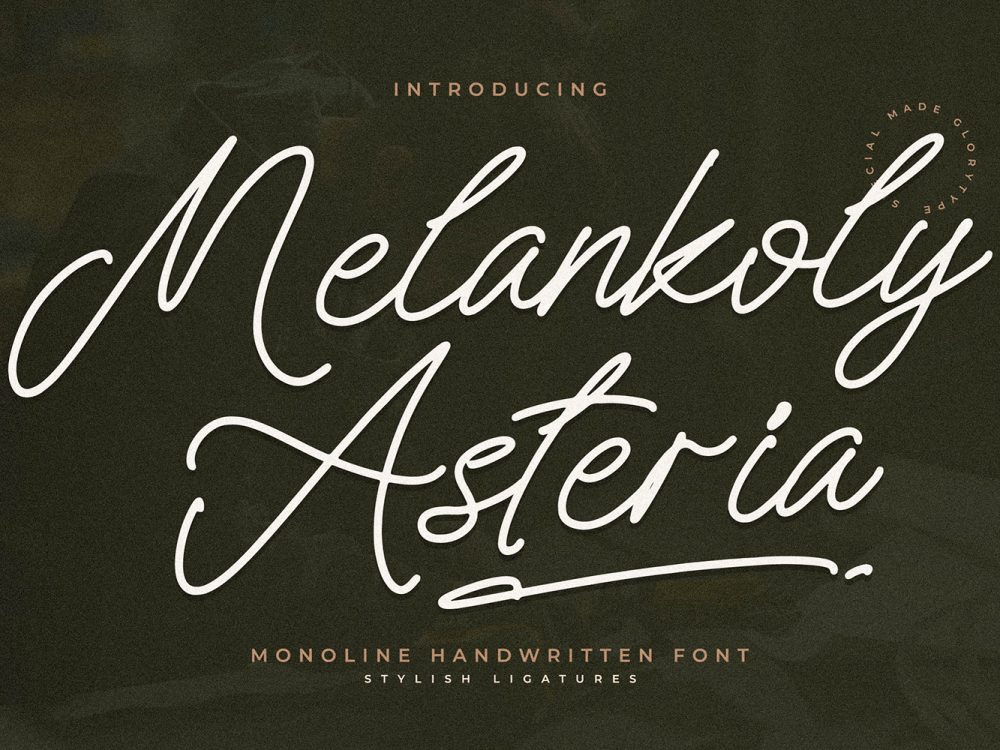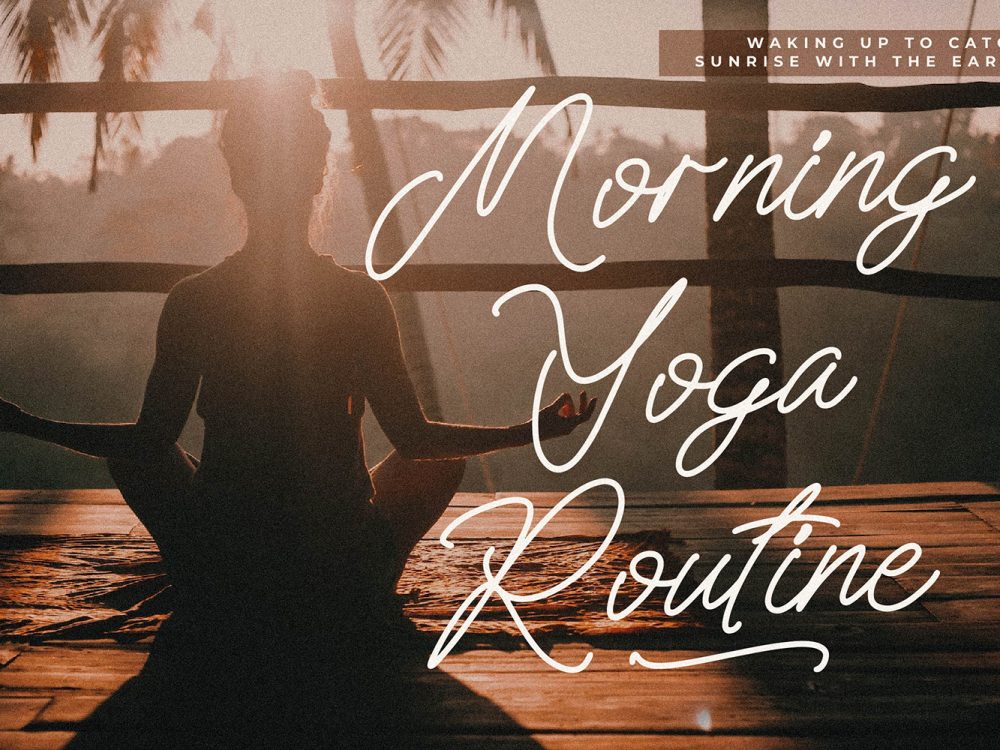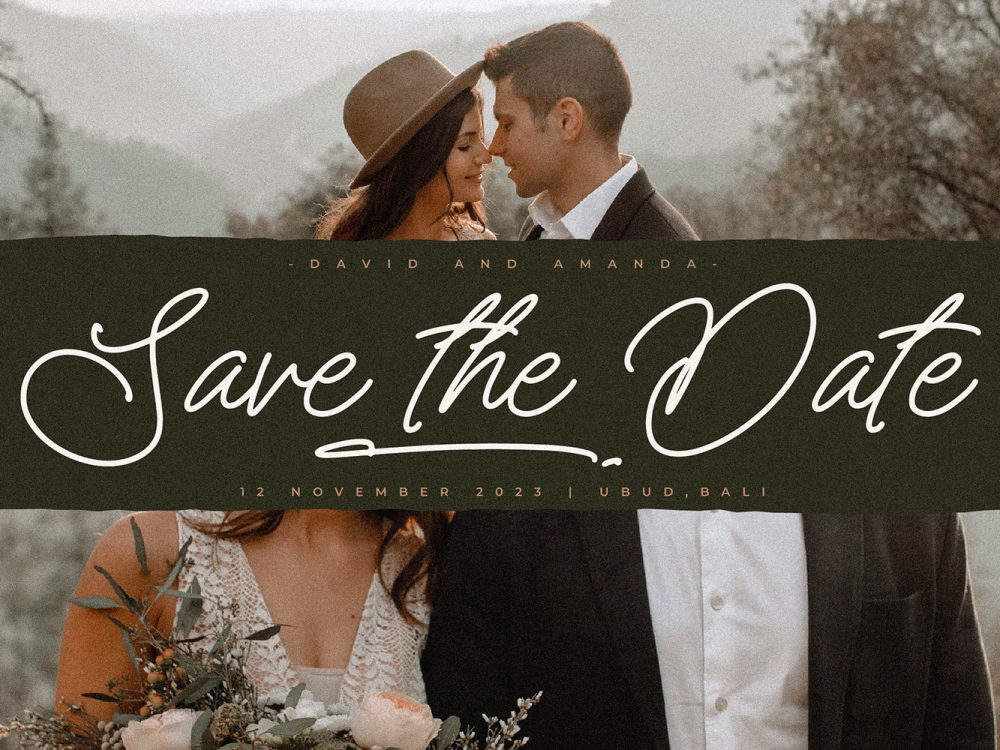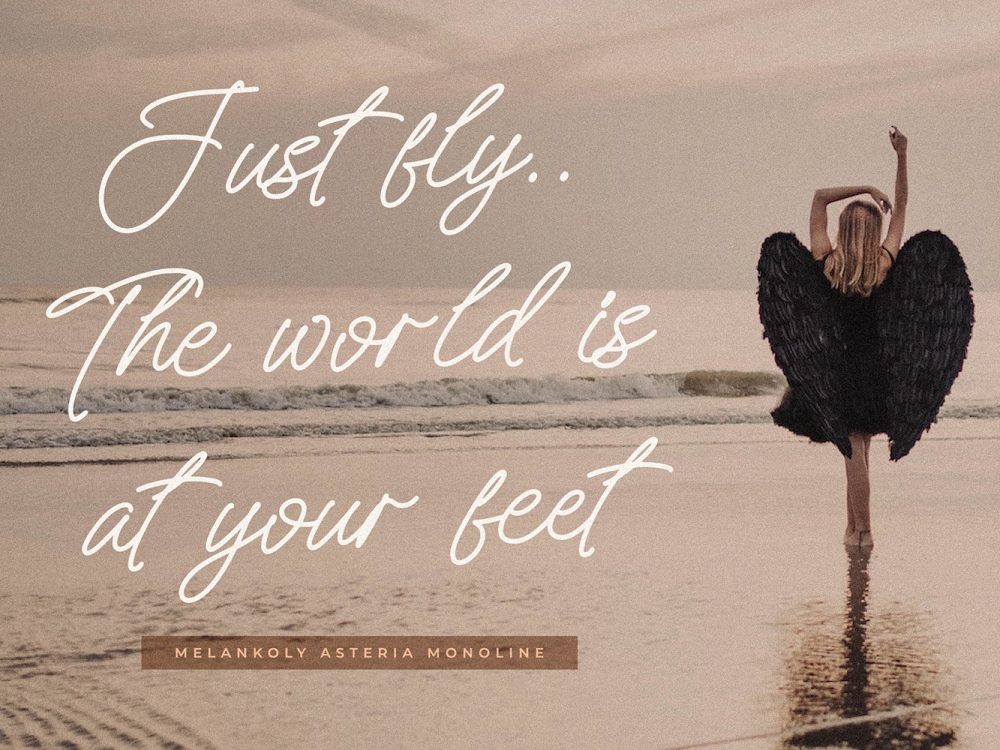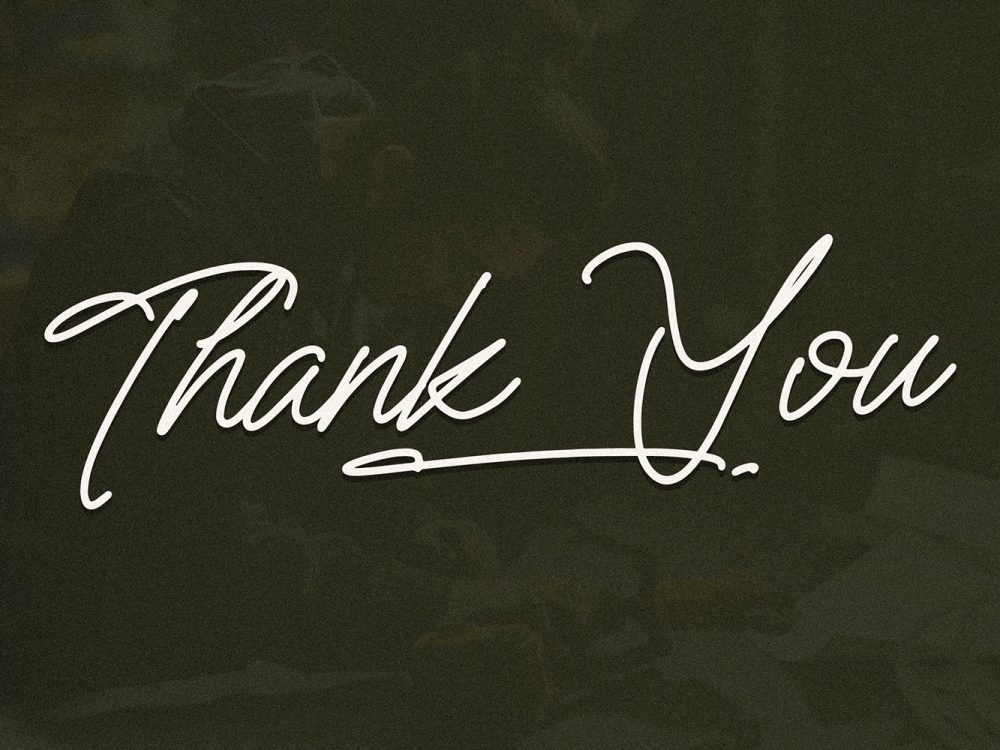
Melankoly Asteria Free Font
Discover the charm of Melankoly Asteria Free Font, a monoline handwritten font that brings elegance to your projects. From logos and branding to homeware designs, product packaging, mugs, quotes, posters, shopping bags, t-shirts, book covers, name cards, invitation cards, greeting cards, labels, photography, watermarks, special events, and more, Melankoly Asteria is the perfect choice. Infuse a beautiful script taste into all your lovely projects with Melankoly Asteria. If you like it don’t forget to check out the full version.